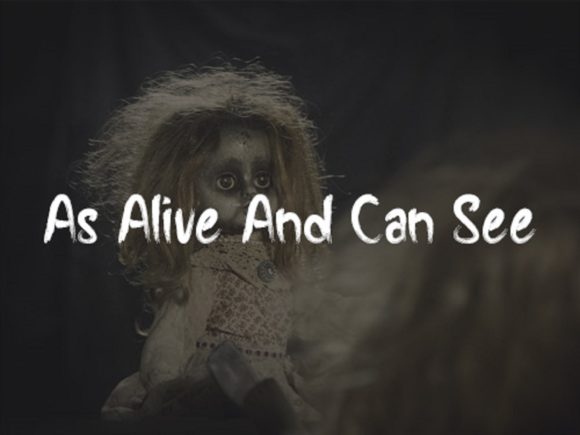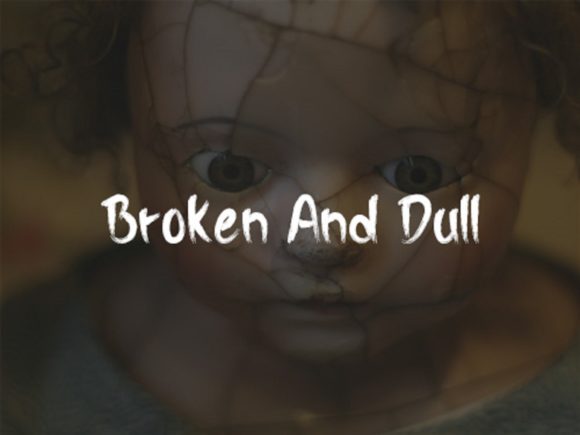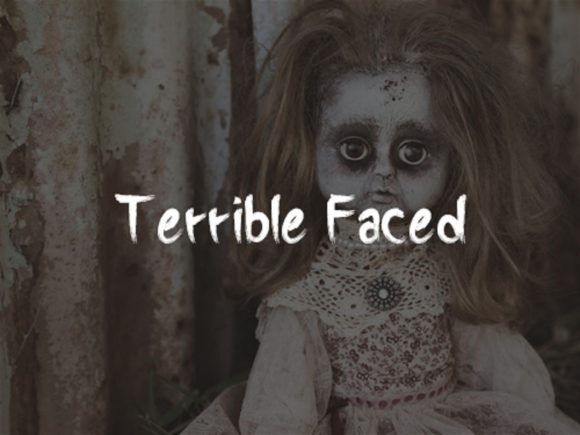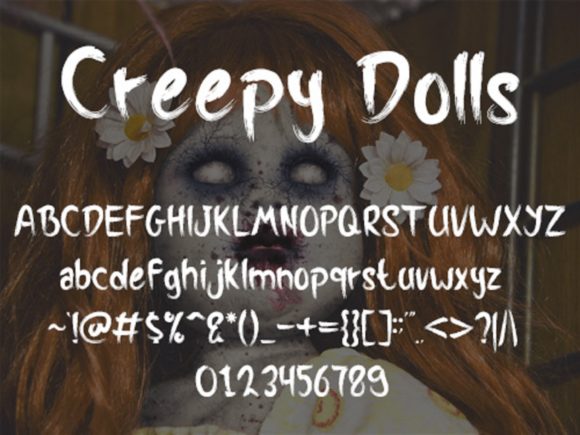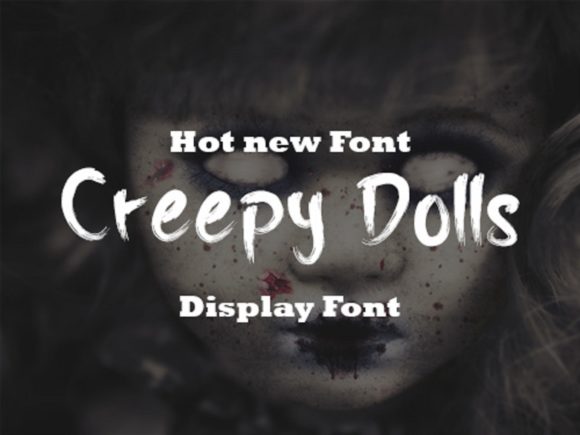
Unleash the Creepiness: Discover the Creepy Dolls Font
Are you a designer or crafter looking for a font that will add a touch of spookiness to your projects? Look no further than the Creepy Dolls Font. This spooky brushed display font is perfect for creating eerie and unsettling designs that will leave a lasting impression on your audience. In this article, we’ll explore the features and uses of Creepy Dolls Font, and show you how to incorporate it into your designs.
What is Creepy Dolls Font?
Creepy Dolls Font is a unique and eye-catching font that is designed to evoke a sense of unease and fear. With its rough, brushed texture and irregular letterforms, this font is perfect for creating designs that are meant to be creepy, scary, or just plain unsettling. Whether you’re working on a Halloween-themed project or just want to add a touch of macabre to your design, Creepy Dolls Font is the perfect choice.
Key Features of Creepy Dolls Font
- Spooky Brushed Texture: The Creepy Dolls Font features a rough, brushed texture that gives it a unique and eerie feel.
- Display Font: This font is designed specifically for display purposes, making it perfect for headlines, titles, and other attention-grabbing elements.
- Scary and Eerie: The Creepy Dolls Font is designed to be creepy and unsettling, making it perfect for Halloween-themed designs or any project that requires a spooky touch.
Uses for Creepy Dolls Font
Creepy Dolls Font is a versatile font that can be used for a wide range of design projects. Here are a few ideas to get you started:
- Halloween-themed designs: Creepy Dolls Font is perfect for creating spooky Halloween-themed designs, such as invitations, posters, and social media graphics.
- Scary movie and TV show posters: Use Creepy Dolls Font to create eye-catching posters for scary movies and TV shows.
- Creepy crafts and DIY projects: Add a touch of spookiness to your crafts and DIY projects, such as haunted house decorations or creepy jewelry.
- Dark and Gothic designs: Creepy Dolls Font is also perfect for creating dark and gothic designs, such as logos, business cards, and brochures.
Tips for Using Creepy Dolls Font
Here are a few tips for using Creepy Dolls Font in your designs:
- Use it sparingly: Creepy Dolls Font is a bold and attention-grabbing font, so use it sparingly to avoid overwhelming your design.
- Pair it with contrasting fonts: Pair Creepy Dolls Font with contrasting fonts, such as a clean sans-serif font, to create visual interest.
- Experiment with colors: Creepy Dolls Font looks great in bold, bright colors, but also try experimenting with dark and muted colors to create a more eerie effect.
| Font Name | Creepy Dolls Font |
| Author | scriptstrategy |
Creepy Dolls Font is a unique and eye-catching font that is perfect for designers and crafters looking to add a touch of spookiness to their projects. With its rough, brushed texture and irregular letterforms, this font is sure to grab attention and leave a lasting impression. Whether you’re working on a Halloween-themed project or just want to add a touch of macabre to your design, Creepy Dolls Font is the perfect choice.